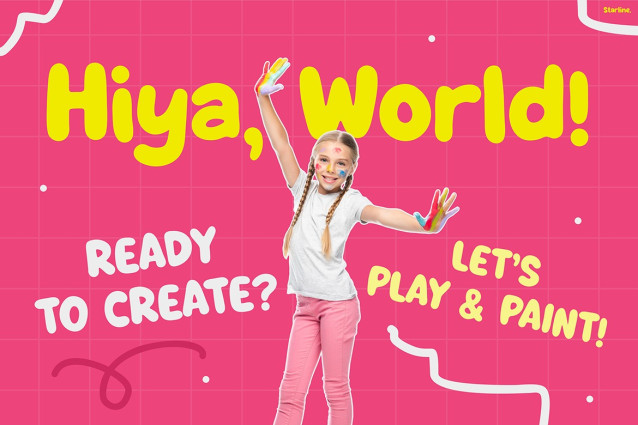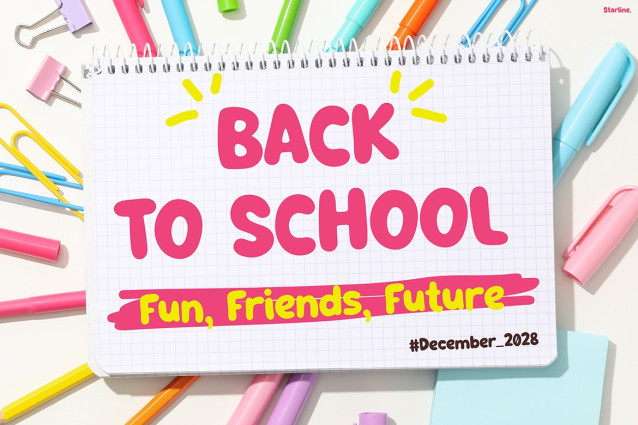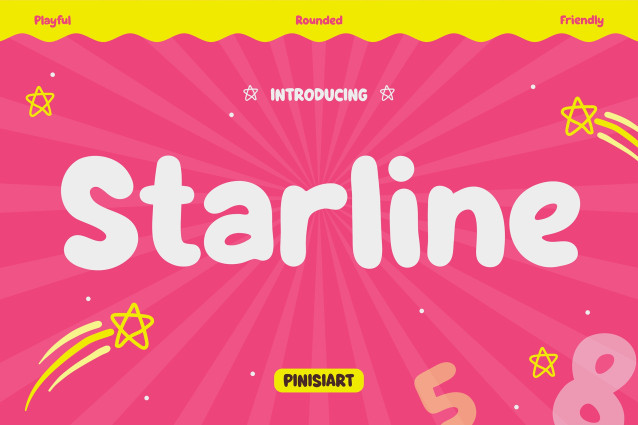
Starline Playful Font
Starline Playful Font is a delightful typeface made to bring joy and excitement to any project. Its rounded shapes, bold strokes, and cheerful curves create a friendly look. Moreover, unlike ordinary fonts, Starline combines playful style with clear readability. Each letter feels full of energy and sparks imagination. Therefore, it is perfect for capturing children’s attention and boosting creativity. As a result, whether you design posters, books, or branding, this font makes text come alive with fun and color.
Kids Font Starline is created for people who want fun and professionalism in one design. Because of its bold yet approachable style, it works well for teachers making worksheets, schools preparing learning posters, or parents creating birthday invitations. In addition, graphic designers can use it to brand toys, snacks, or kids’ clothing. Bloggers and family creators will also find it useful. On the other hand, if you focus on parenting or early education, this font helps you set a warm and playful tone.